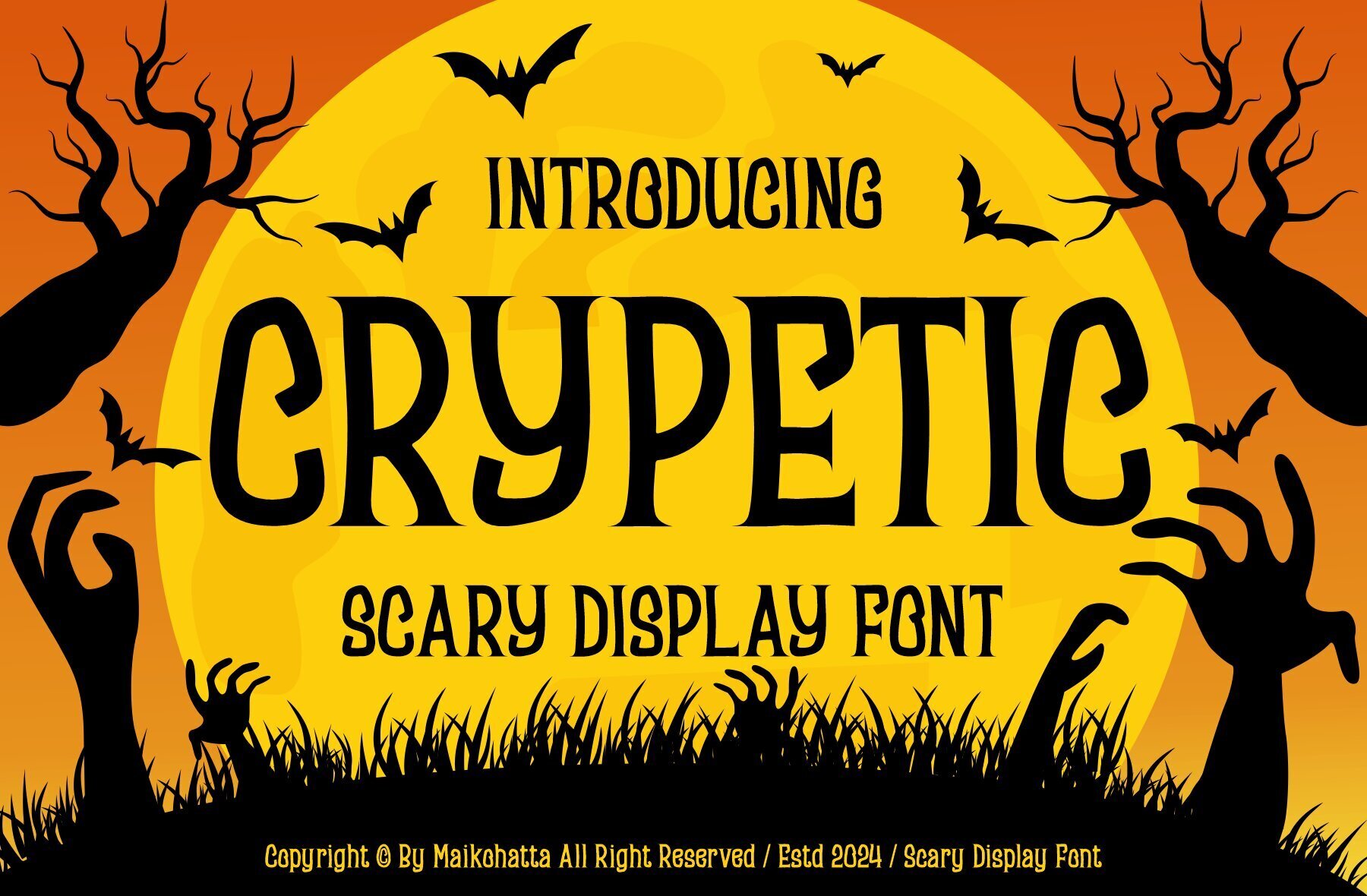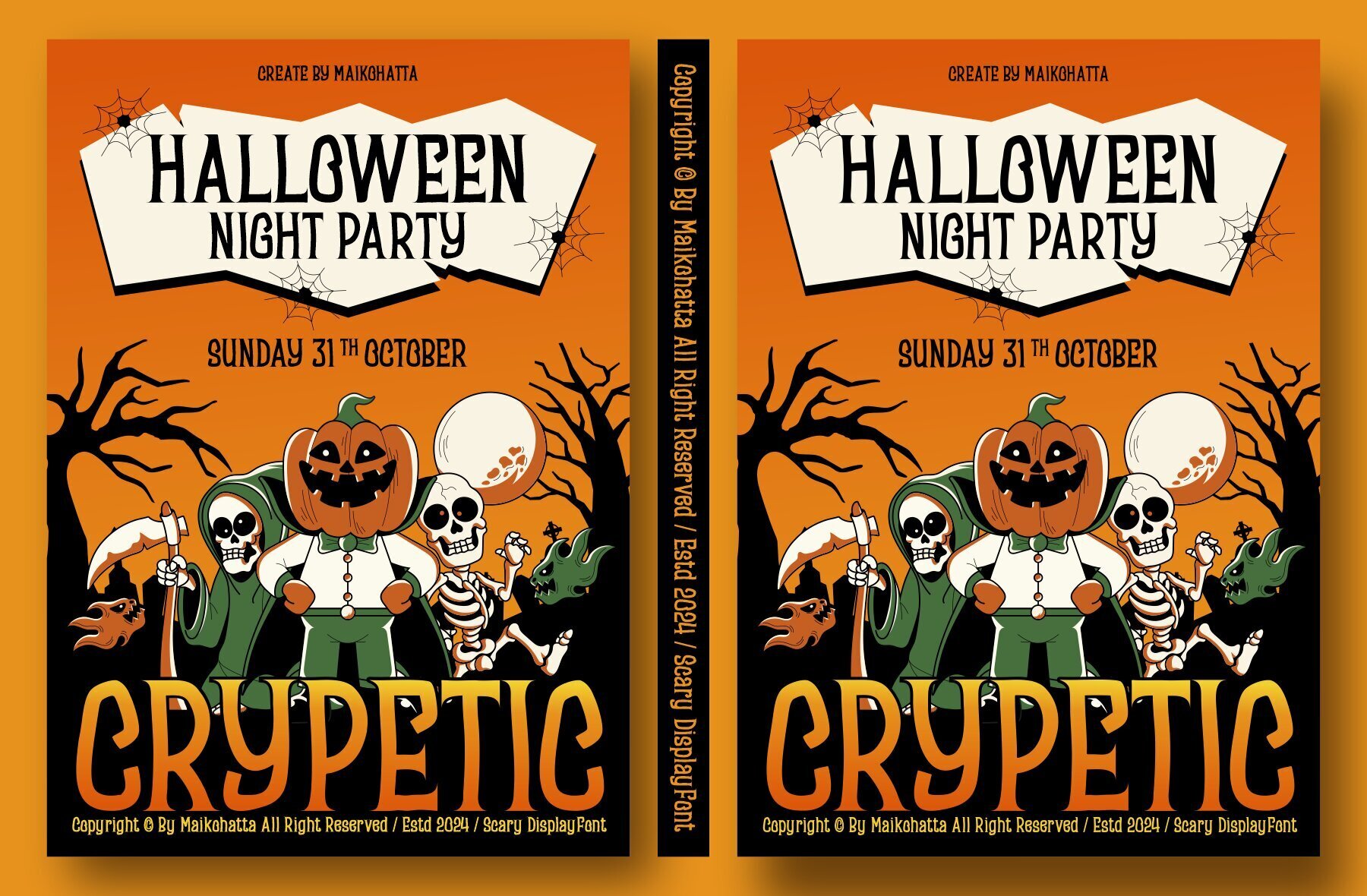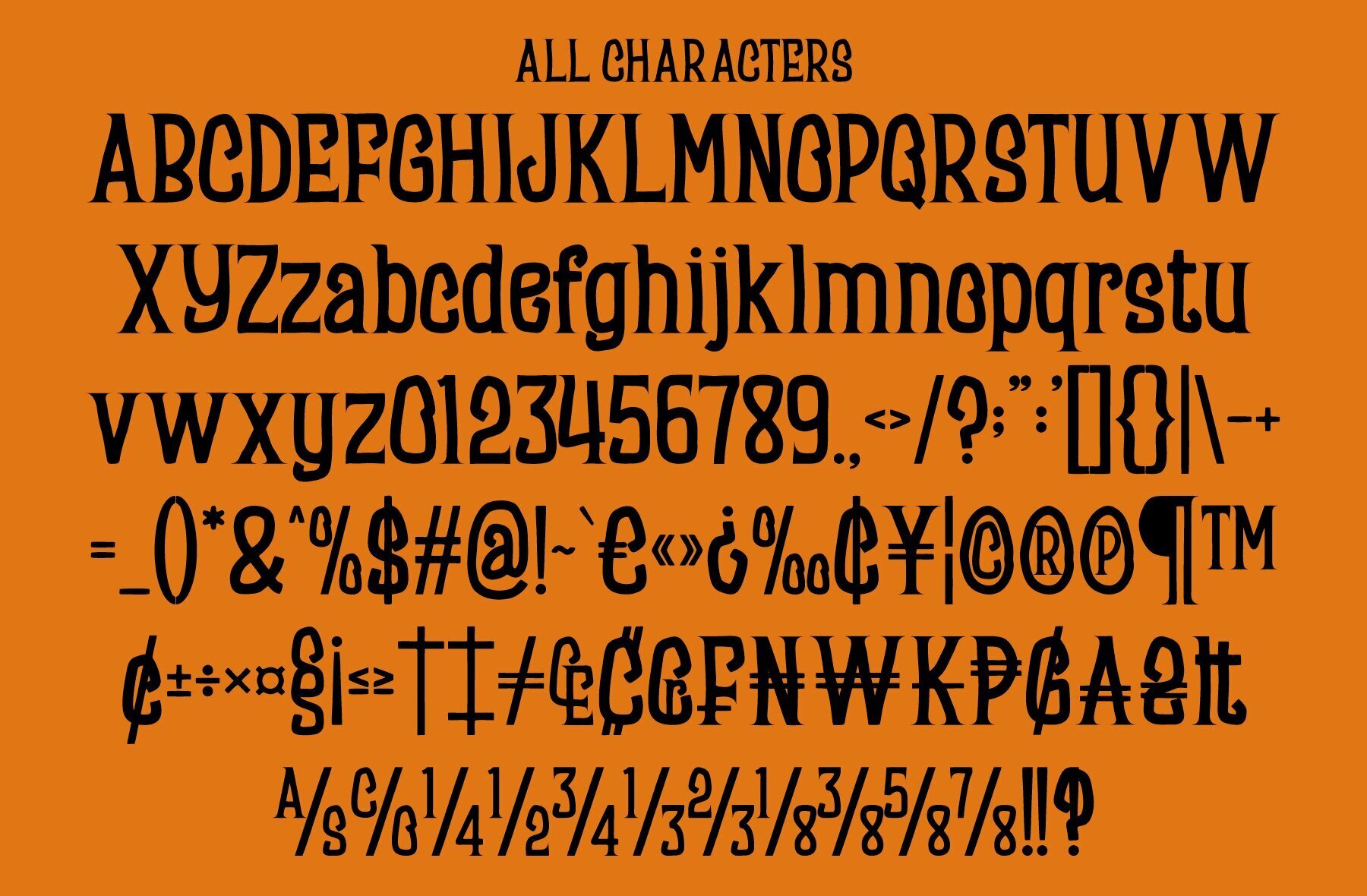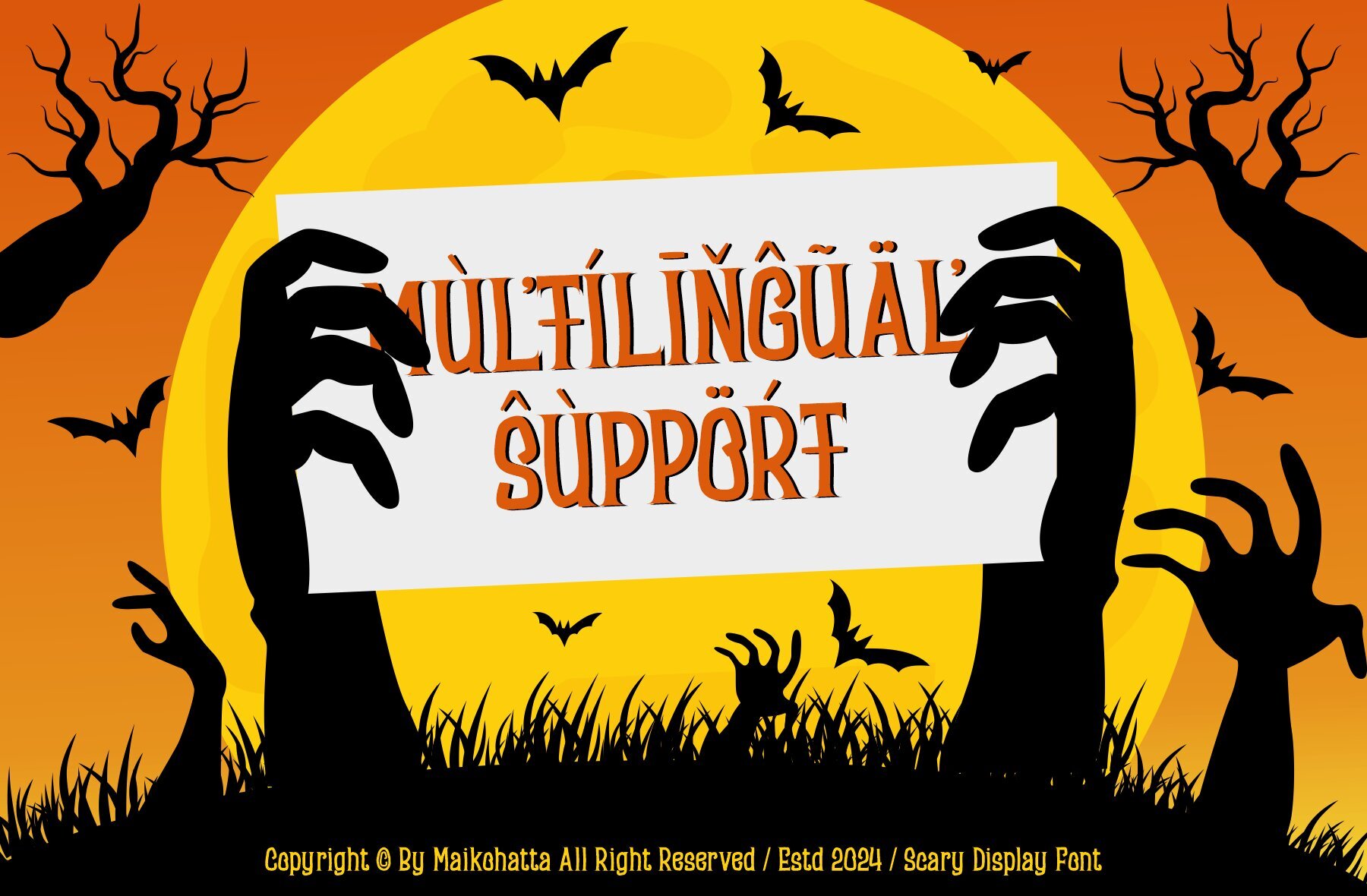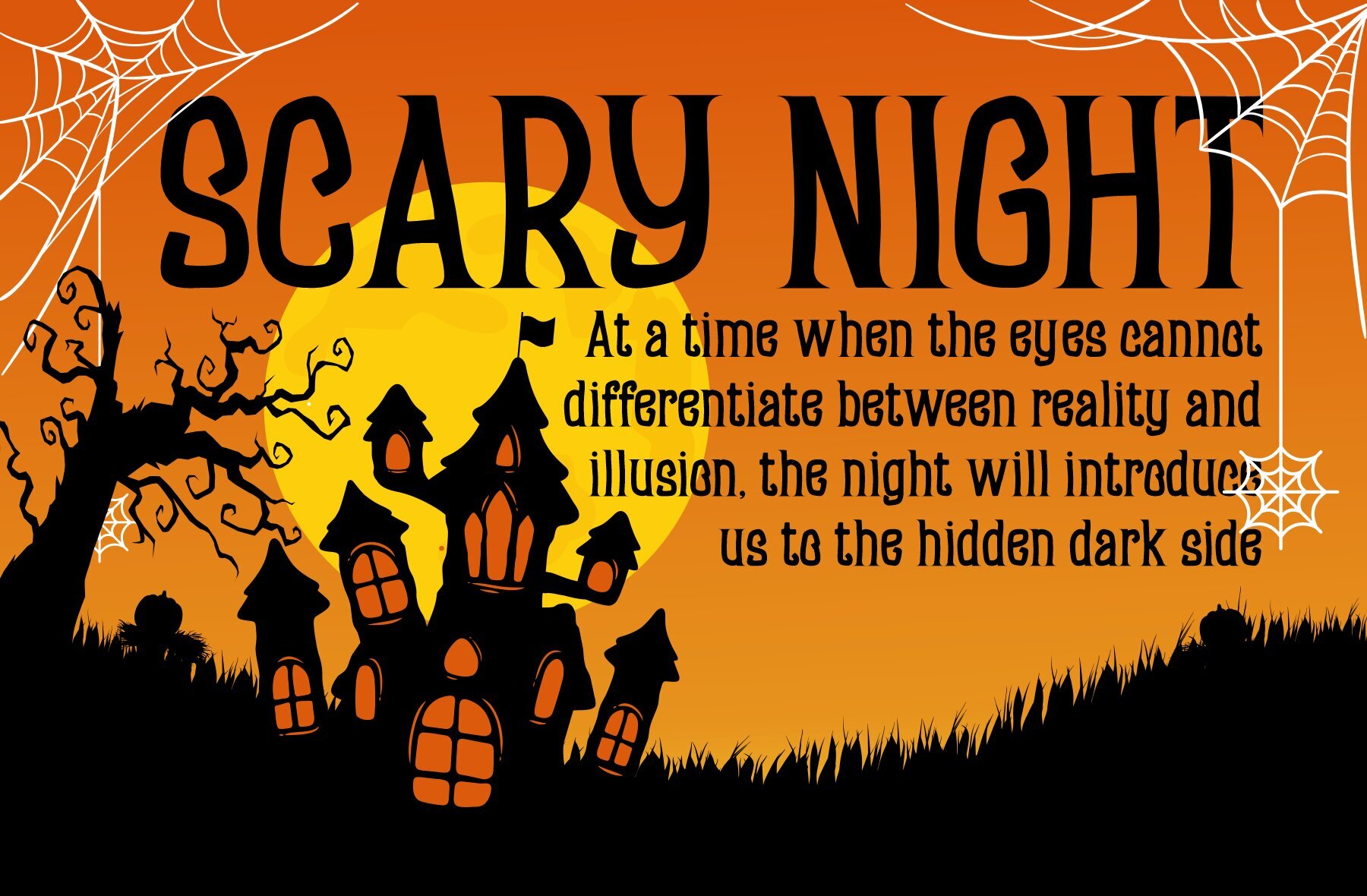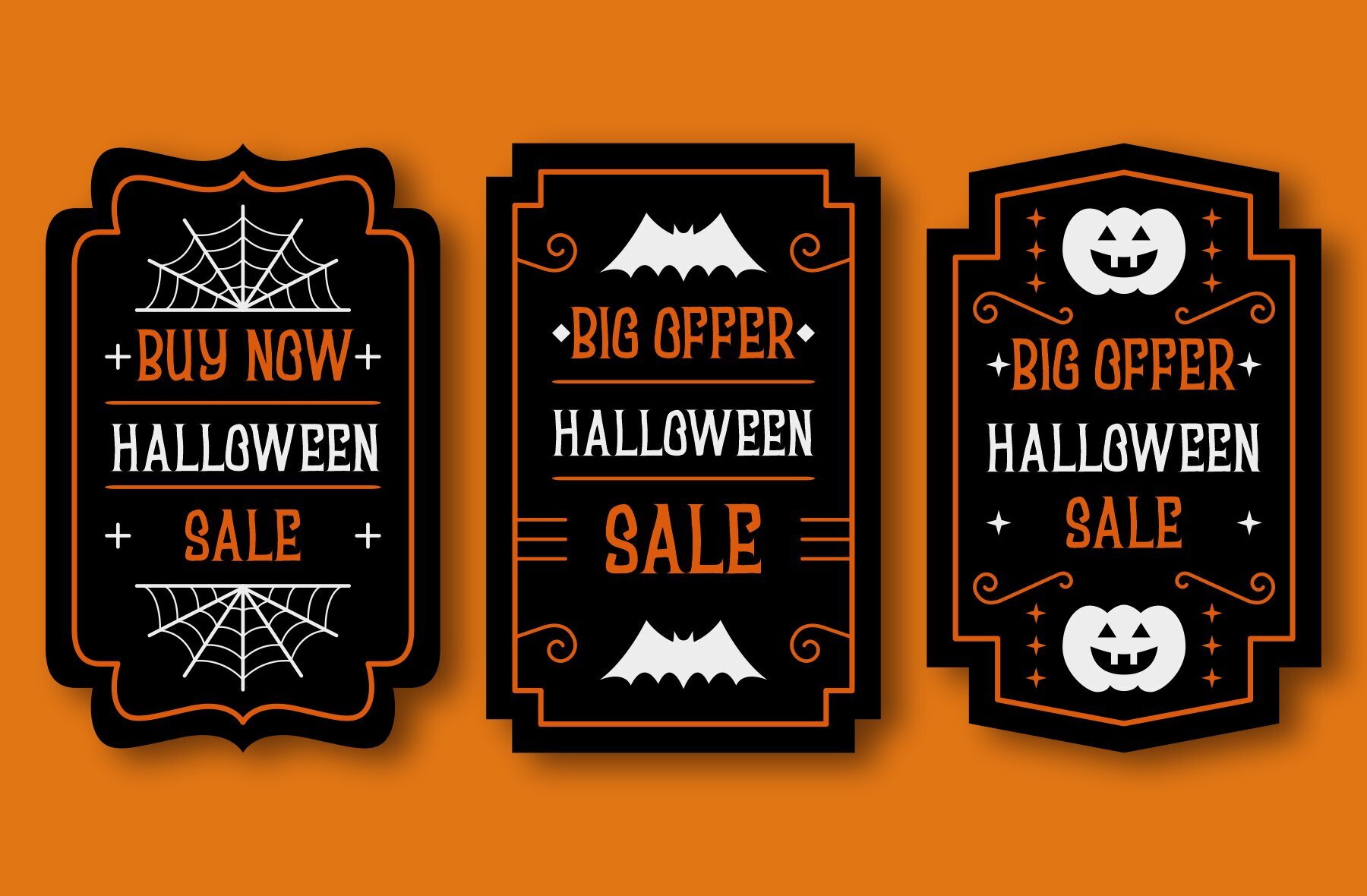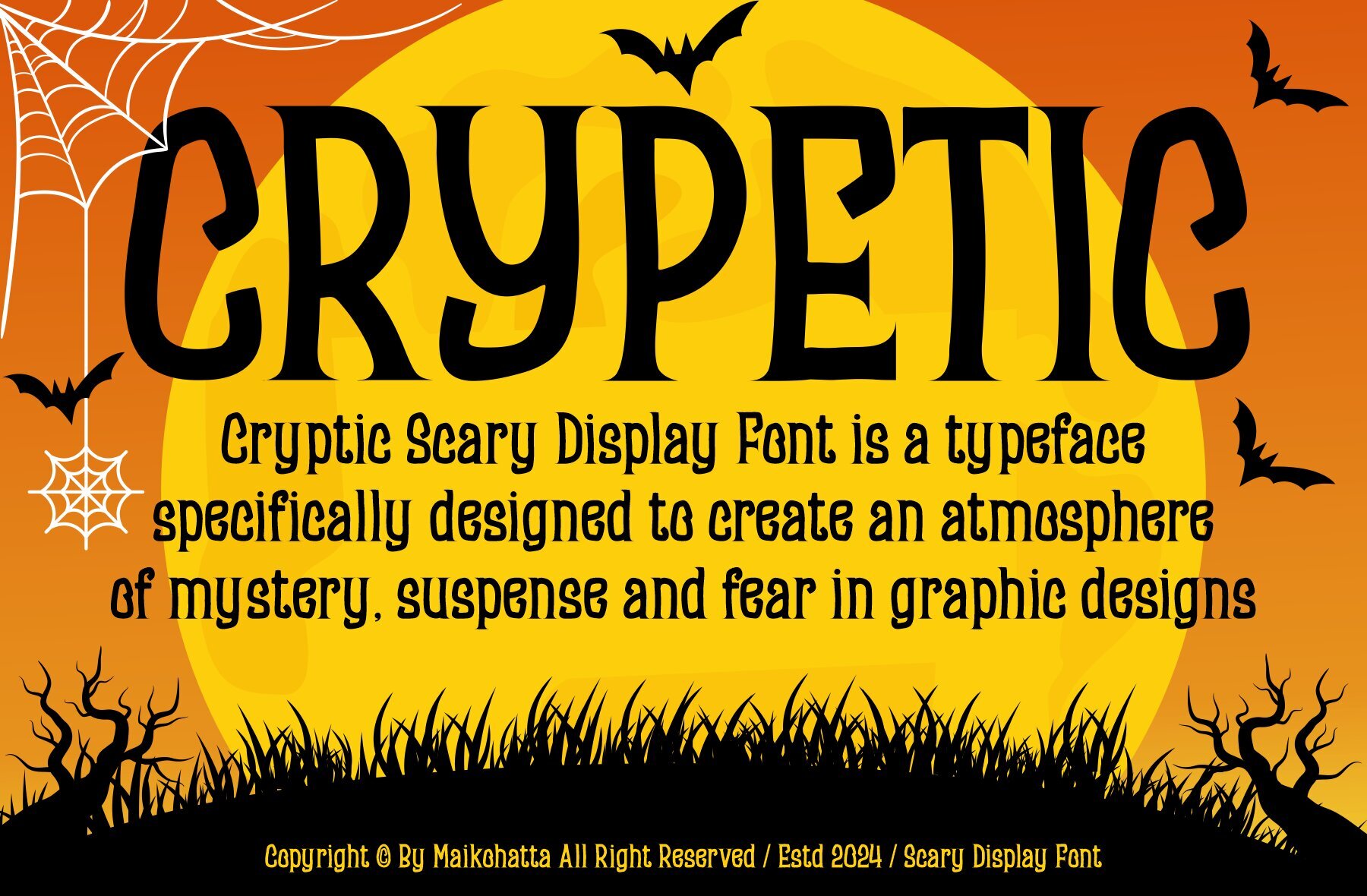
Crypetic Font
This is a bold and decorative serif font with a distinctive and quirky style. Perfect for vintage-themed designs, posters, headlines, and any creative project that requires a high-impact and artistic typeface. Its textured and playful appearance will make your design stand out and capture attention.